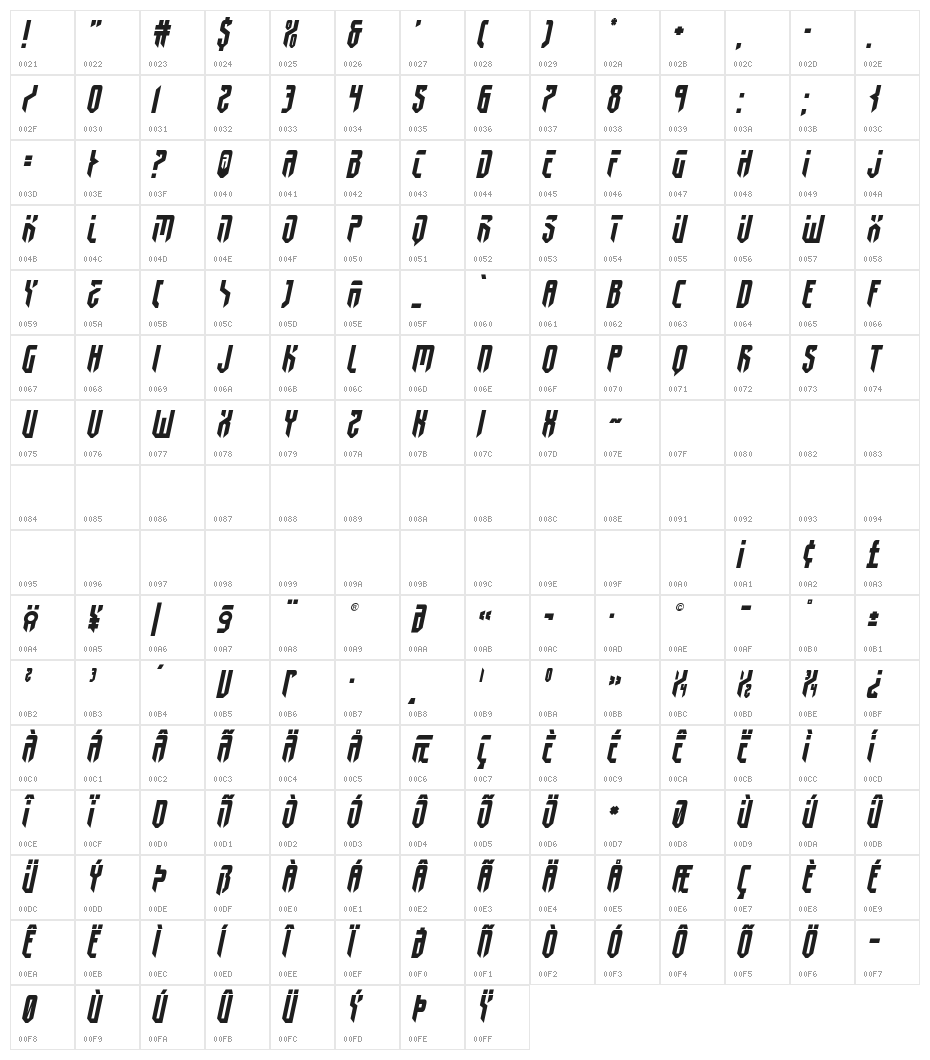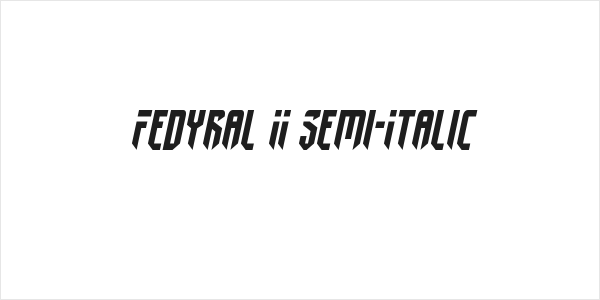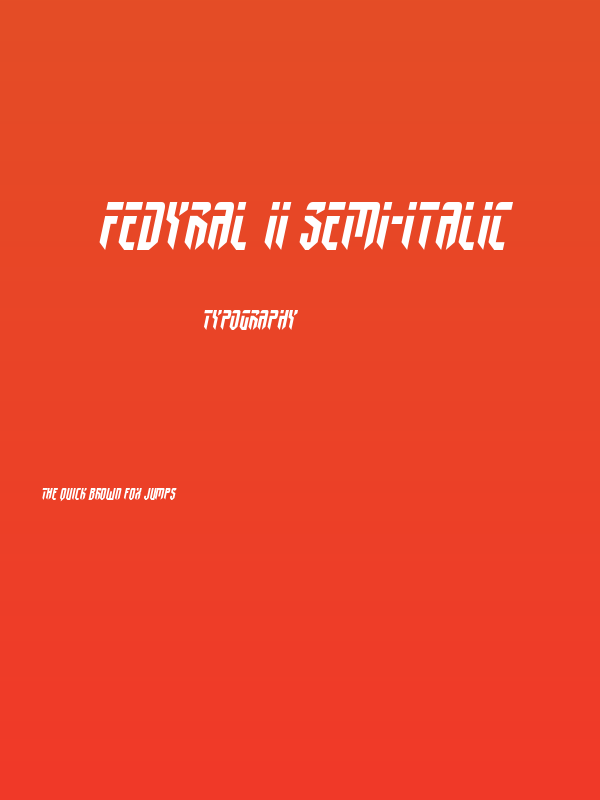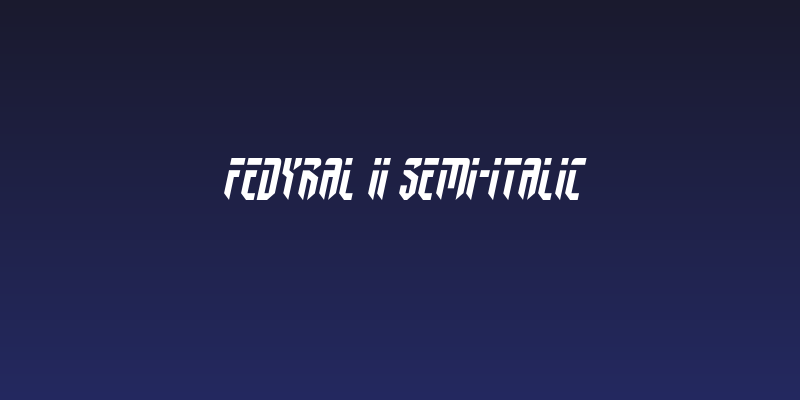
Fedyral II Semi-Italic Font
Fedyral II Semi-Italic Description
This font features a bold, angular design with a distinct futuristic flair. The characters are sharply defined with a forward-leaning italic style, giving a sense of motion and dynamism. The uppercase letters are particularly striking, with unique geometric shapes that create a strong visual impact. The lowercase letters maintain the same angular aesthetic, ensuring consistency throughout. Numbers and special characters are designed to match the boldness and style of the alphabet, making this font versatile for various applications. The overall appearance is modern and edgy, perfect for projects that require a standout typeface.
| Proposed Projects | Ideal for sci-fi themed designs, video game graphics, posters, and branding that requires a modern, edgy look. |